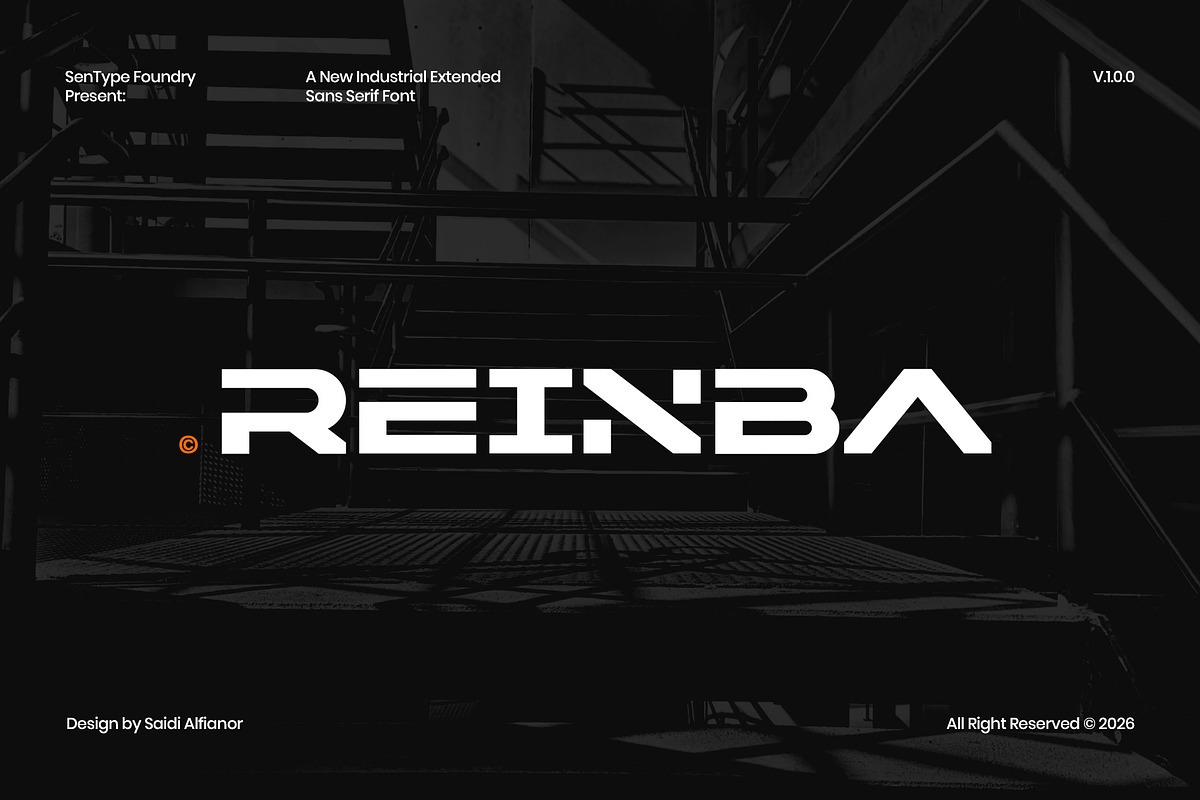
Reinba Font
Reinba Font is a flexible and reliable font created to fit multiple design needs, from branding and packaging to social media and editorial layouts. Reinba Extended is a bold, modern display typeface featuring an ultra-wide, geometric structure that commands attention. Designed by Saidi Alfianor under the Sentype Foundry, this regular-weight font blends a clean, minimalist aesthetic with a powerful, contemporary presence. Its expansive, horizontal letterforms make it exceptionally well-suited for high-impact branding, futuristic logo designs, tech aesthetics, and editorial headlines. With its balanced spacing and striking visual weight, Reinba Extended effortlessly gives any layout a sophisticated, cutting-edge edge.